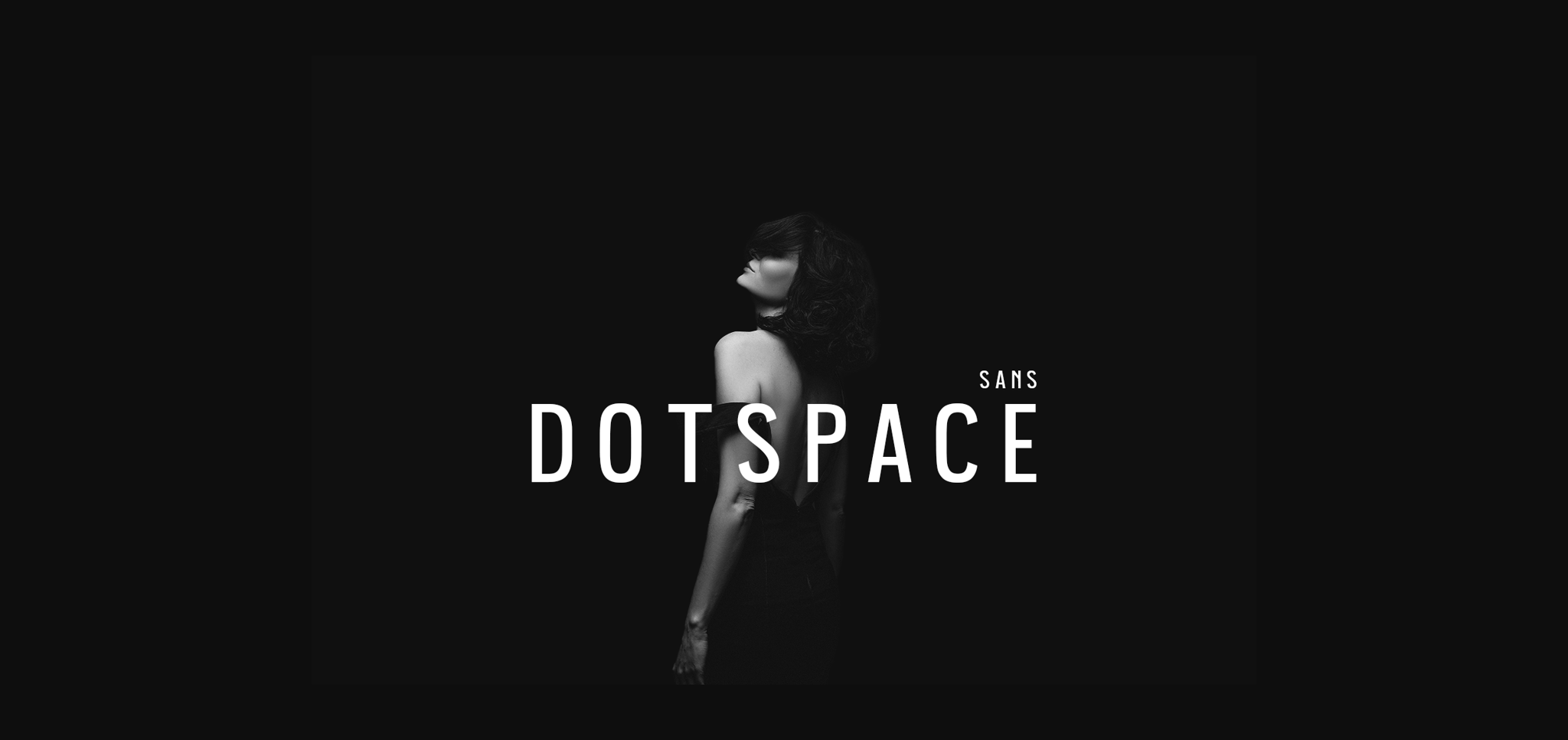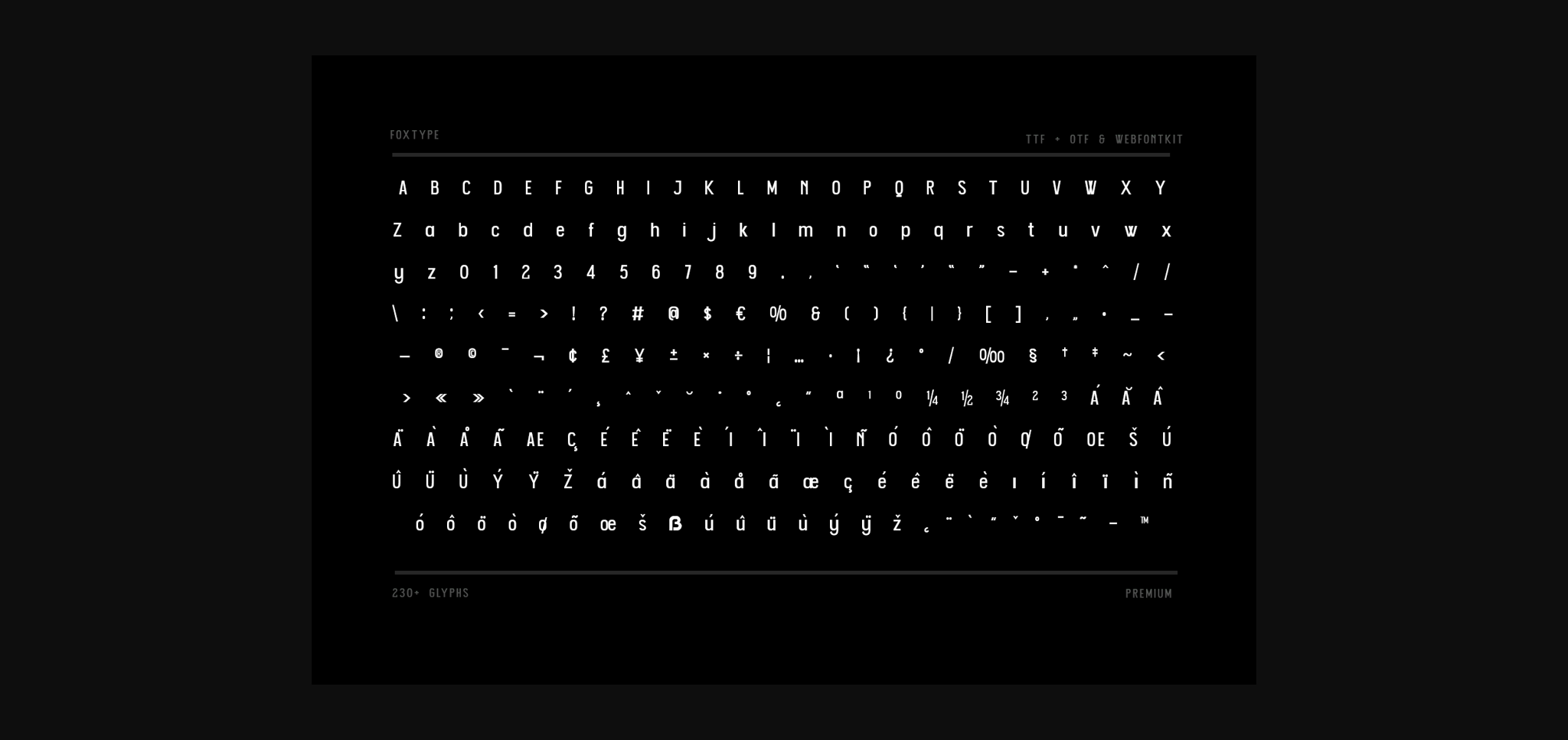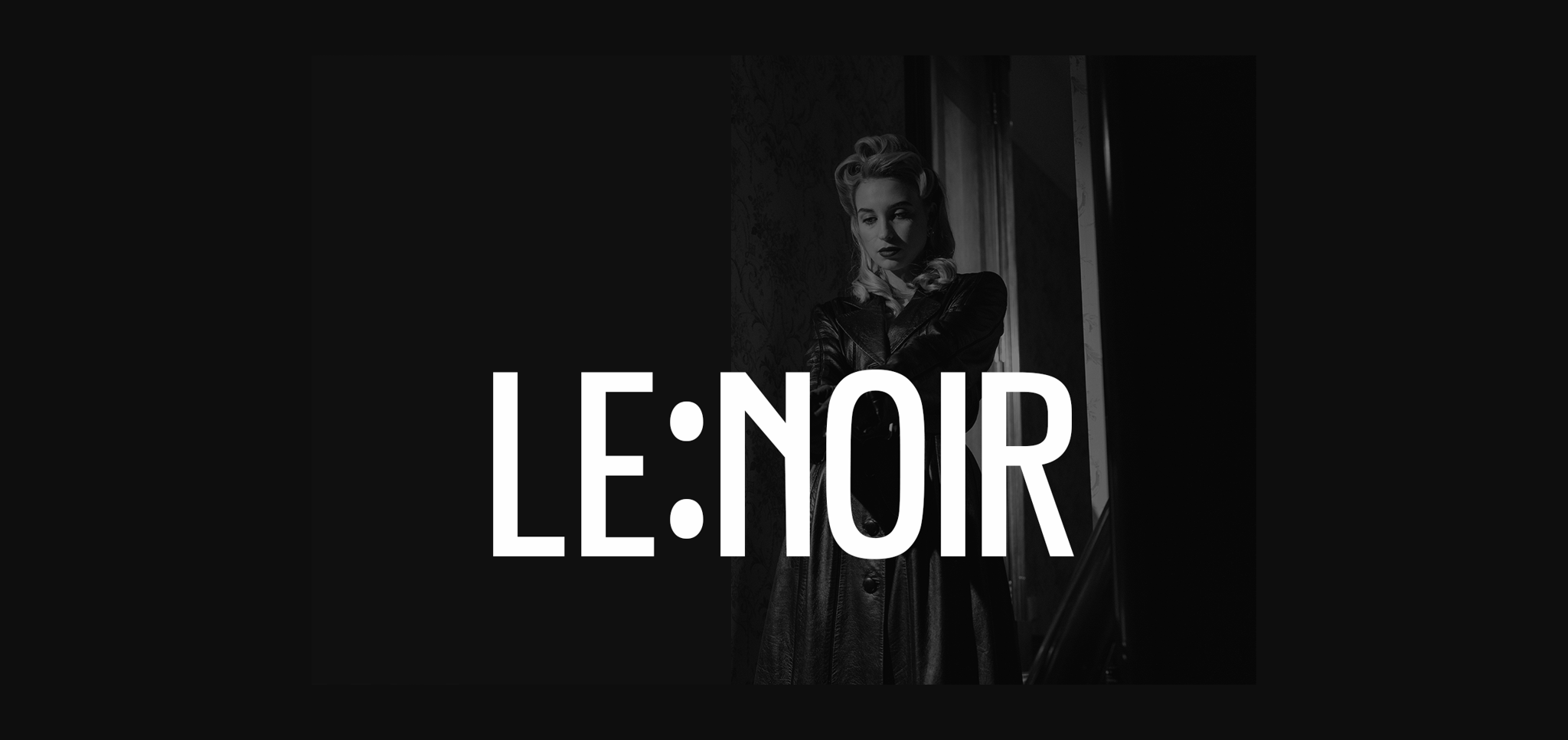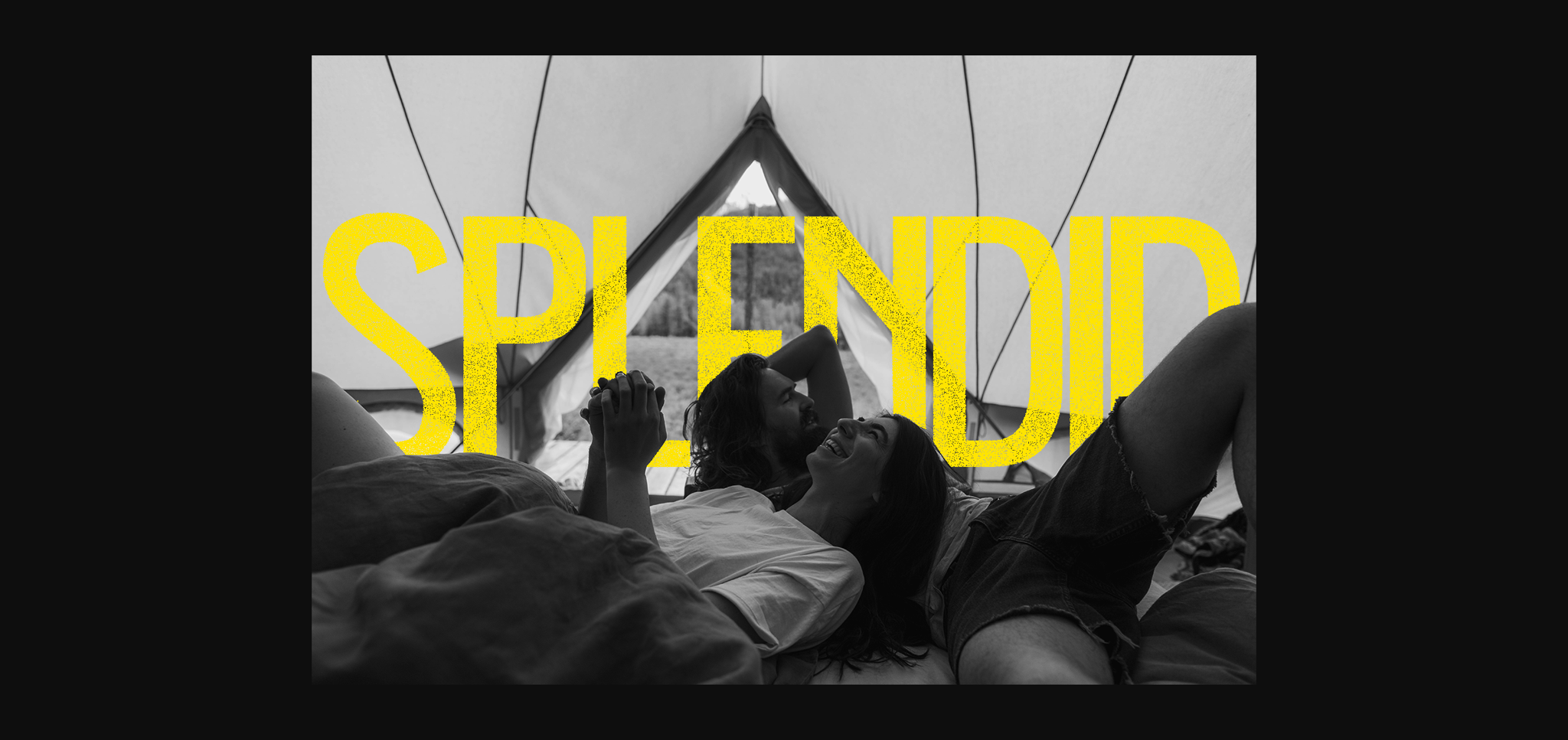
Dotspace Font
About Dotspace Font
Introducing Dotspace Display new generation Typeface created for building brand identity. Dotspace Typeface was created with the vision of attracting the audience to your brand. The finest details of this typeface are methodically and mathematically created. Dotspace is created with all the tasks of a corporate font and is also for use in a variety of projects, including branding, logos, titles, headlines, posters, screens, displays, digital ads, and everything else.